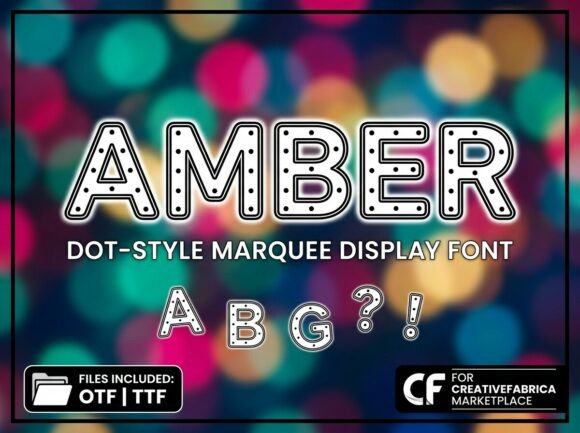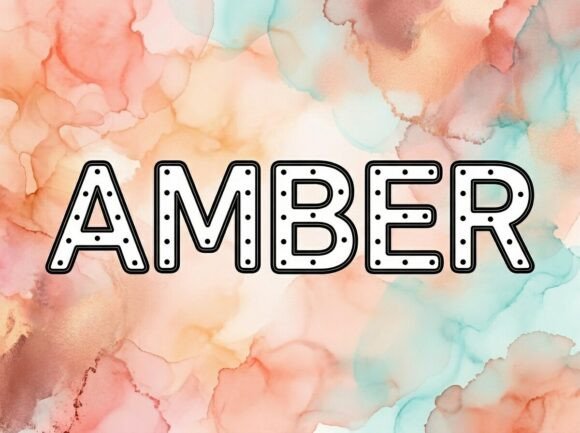
Introducing Amber Font: The Epitome of Modern Elegance and Sophistication
In the realm of typography, few fonts manage to capture the essence of glamour and sophistication as effortlessly as Amber. This modern marquee typeface is designed to illuminate your canvas with its polished and glamorous soul, making it an ideal choice for designers and crafters seeking to elevate their branding, logos, and social media headers.
The Inspiration Behind Amber
Amber’s design draws inspiration from the classic theatre signs that have become iconic symbols of entertainment and spectacle. The font features clean, hollow letterforms characterized by a rhythmic pattern of solid dots that mimic the glowing bulbs of these vintage signs. This unique design element not only pays homage to the past but also infuses the font with a sense of modernity and freshness.
Key Features of Amber Font
- Clean and Hollow Letterforms: Amber’s letterforms are meticulously crafted to exude a sense of cleanliness and sophistication. The hollow design gives the font a light and airy feel, making it perfect for a variety of applications.
- Rhythmic Pattern of Solid Dots: The rhythmic pattern of solid dots that characterizes Amber’s design is not only visually striking but also serves as a nod to the glowing bulbs of classic theatre signs.
- Balanced Structural Weight: Amber boasts a balanced structural weight that lends it a sense of stability and elegance. This balance ensures that the font remains legible and impactful across various mediums and sizes.
- Sophisticated Personality: Amber’s design personality is undoubtedly sophisticated, making it an excellent choice for high-end branding and design projects.
Applications for Amber Font
Given its unique blend of modernity and sophistication, Amber is suited for a wide range of applications, including:
- Independent Fashion Boutique Branding: Amber’s glamorous and polished soul makes it an ideal choice for fashion boutiques looking to establish a strong brand identity.
- High-End Event Planning Logos: For event planners who specialize in high-end events, Amber offers a level of sophistication and elegance that is sure to impress.
- Creative Agency Titles: Creative agencies seeking to establish a strong and impactful brand presence will find Amber to be an excellent choice.
- High-Impact Social Media Headers: In the realm of social media, Amber’s sleek and show-stopping design makes it perfect for headers that demand attention.
Why Choose Amber Font?
With the myriad of fonts available to designers and crafters, what sets Amber apart? Here are a few reasons why Amber should be at the top of your font choices:
- Versatility: Amber’s design is versatile enough to be used across a variety of mediums, from digital platforms to print materials.
- Uniqueness: In a sea of generic fonts, Amber’s unique design ensures that your projects stand out from the crowd.
- Elegance: Amber brings a level of elegance and sophistication to any project, ensuring that your designs are always perceived in the best light possible.
Amber font is more than just a typeface; it’s a statement of elegance, sophistication, and modernity. Whether you’re a designer looking to elevate your branding, an event planner seeking to make a statement, or a crafter aiming to add a touch of glamour to your projects, Amber is the premier choice. Its unique design, balanced structural weight, and sophisticated personality make it an invaluable asset in the world of design. Illuminate your canvas with Amber and experience the transformative power of typography.